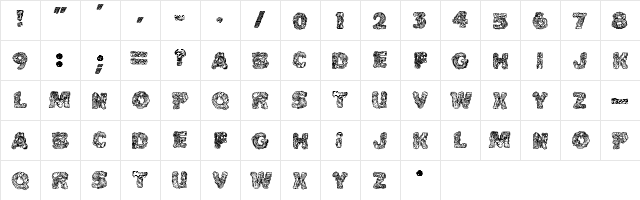
Cake Frosting Decorative
Design Context for Cake Frosting Typeface
Cake Frosting brings ornamental detail and strong personality to headlines and identities, where visual impact matters more than quiet functionality.
Font Pairing: Pair with a clean neutral sans-serif for body copy to let Cake Frosting's character lead without overwhelming the composition.
Pro Tip: Use Cake Frosting exclusively at display sizes — it was designed to be seen, not read at length. Let a neutral companion handle body copy.